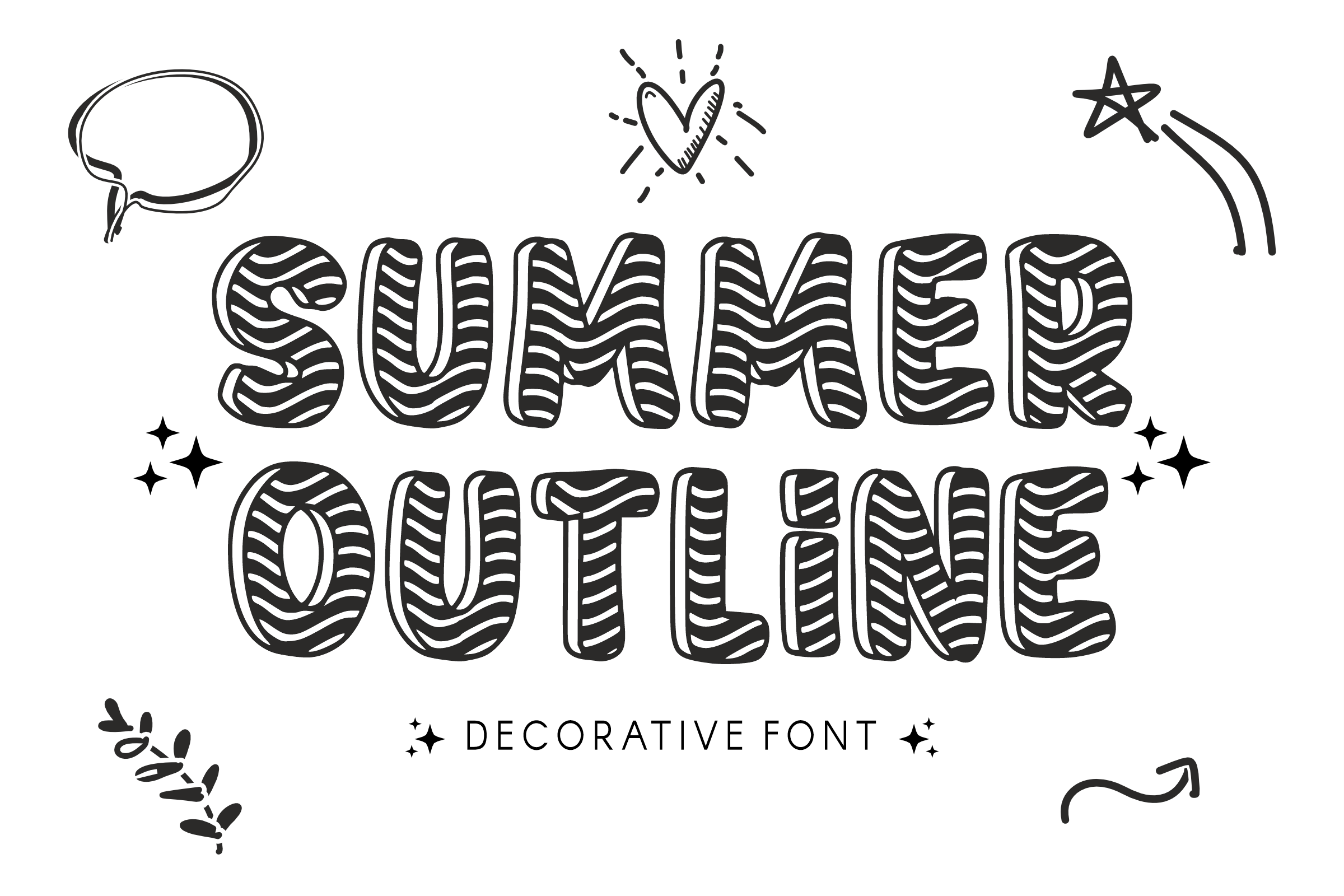
Summer Outline - Display Font
🏖️ Summer Outline - Breezy & Bold Display Font 🌊 Soak up the sun with Summer Outline! This airy and energetic display font is designed to give your projects a fresh, tropical vibe. Featuring chunky, rounded characters with a stylish hollow center and a bold "sticker-style" shadow, it creates a light yet high-impact look that is perfect for seasonal designs.
It’s the ultimate choice for catching the eye without feeling heavy—perfect for a bright, modern, and fun summer aesthetic!
☀️ Key Features: 🍦 Outline Uppercase: Bold, hollow characters that look great on colorful backgrounds.
🔢 Numbers 0-9: Matching outlined numerals for all your summer dates and prices.
🐚 Simple Symbols: Essential punctuation to keep your messages flowing.
✂️ Sticker Ready: Clean, smooth lines optimized for vinyl cutting and DIY printing.
🎨 Perfect For: 🌊 Summer Branding: Beach club logos, swimwear packaging, and juice bar menus.
👕 Apparel Design: Trendy t-shirts, caps, and aesthetic tote bags.
🎂 Events: Pool party invitations, summer camp banners, and tropical wedding decor.
🏫 School & Crafts: Classroom seasonal posters, scrapbooking, and hobby projects.
📱 Digital Content: Refreshing YouTube thumbnails and vacation vlogs.
Add a splash of sunshine to your creative toolkit with Summer Outline!